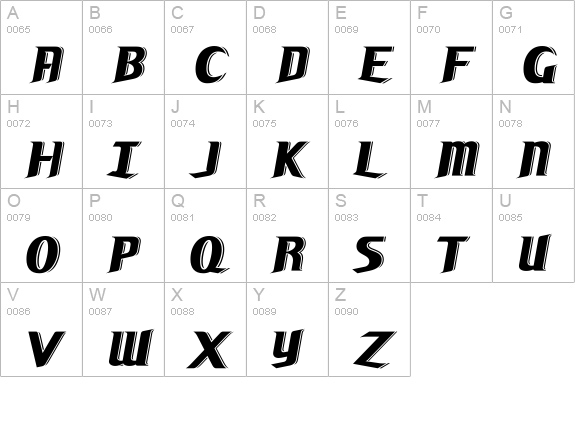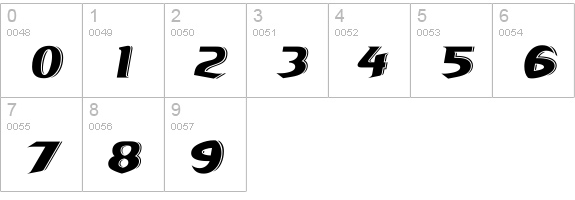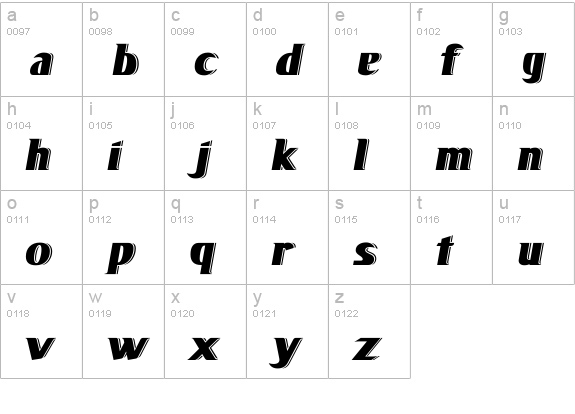
La Mesa Italic Font Details
La Mesa Italic is a distinctive, italic variant in the La typeface family \xE2\x80\x94 well suited to design and typography projects.
Introducing La Mesa Italic font, a captivating and versatile typeface that exudes elegance and sophistication. With its beautifully slanted letters and delicate curves, this font adds a touch of grace and style to any design project. La Mesa Italic font is perfect for those seeking a unique and artistic touch in their creations. Its graceful strokes and flowing lines create a sense of movement and fluidity, making it ideal for conveying messages of creativity, innovation, and imagination. What sets La Mesa Italic font apart is not only its remarkable aesthetics but also its accessibility. This incredible font is freely available to download at FontsMarket.com, providing designers and creatives with the opportunity to elevate their projects without breaking the bank. Whether you're designing a logo, crafting a stunning website, or creating eye-catching print materials, La Mesa Italic font is sure to make a lasting impression. Its versatility allows it to adapt to various contexts, from contemporary to vintage-inspired designs, making it a valuable asset in any designer's toolkit. With its free availability at FontsMarket.com, La Mesa Italic font empowers designers of all levels to explore their creativity and express their unique vision. So why settle for ordinary when you can embrace the extraordinary? Download La Mesa Italic font today and unlock a world of limitless design possibilities.